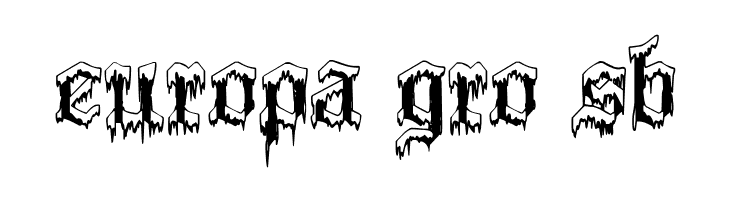
Plymouth Font
Font by Rick Mueller
A bold, decorative font with a vintage flair and strong, condensed characters.
PlymouthRock 'SnowDusted' Font
A bold, Gothic-style font with a snowy, decorative effect.
PlymouthPress-Display Font
Font by James Brocklehurst
A bold, distressed font with a vintage, industrial feel.